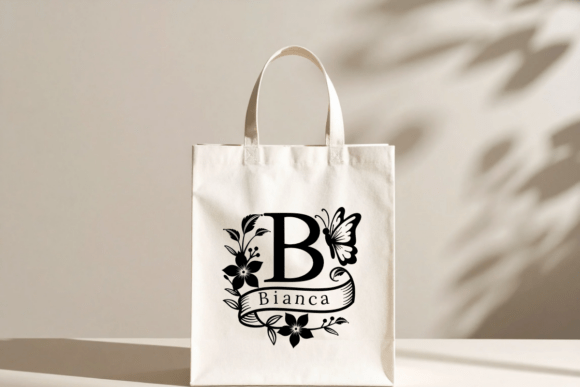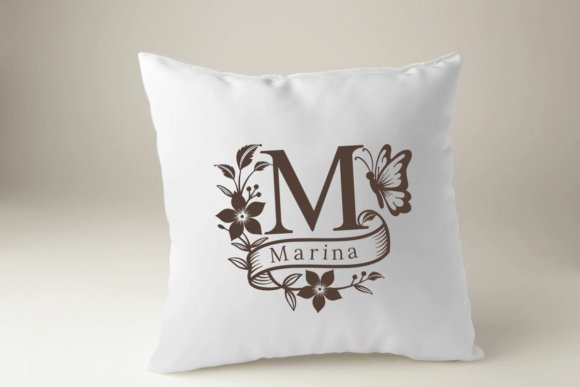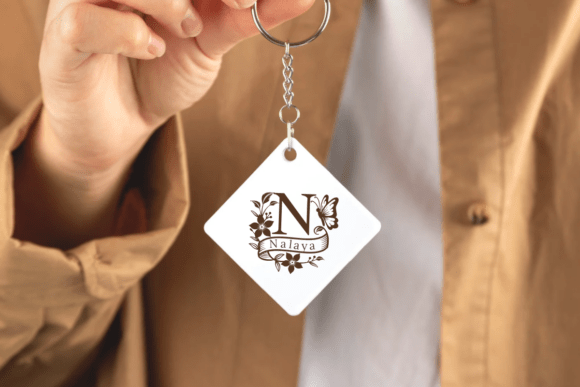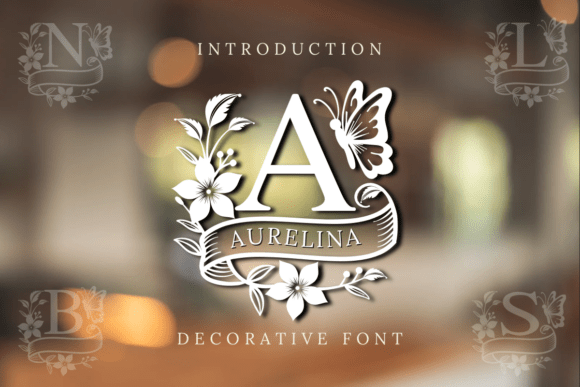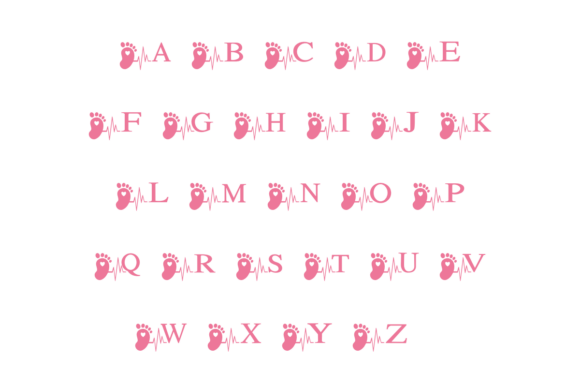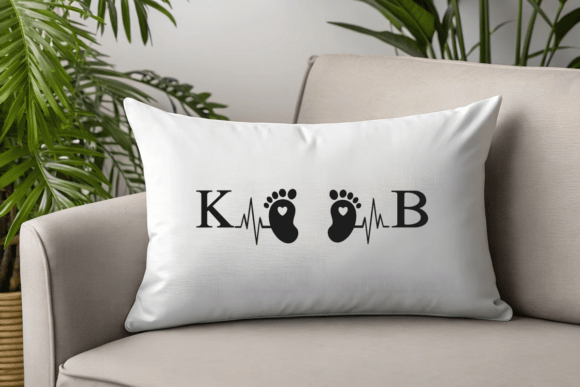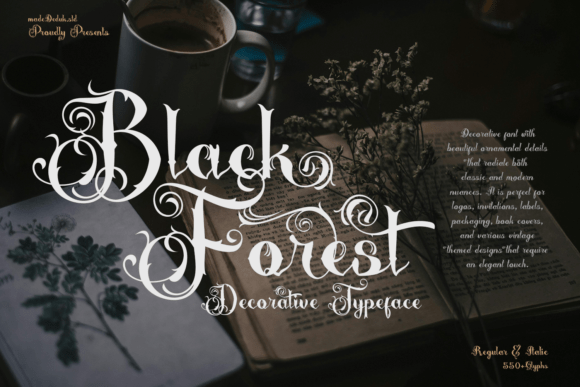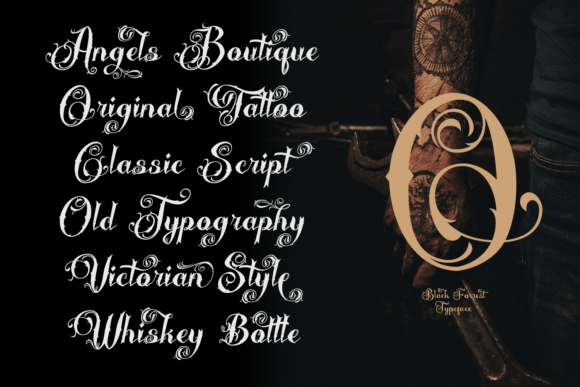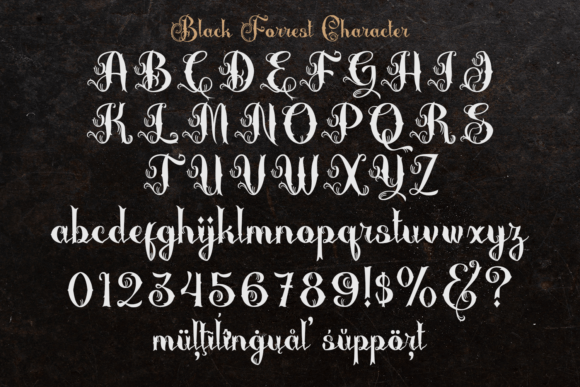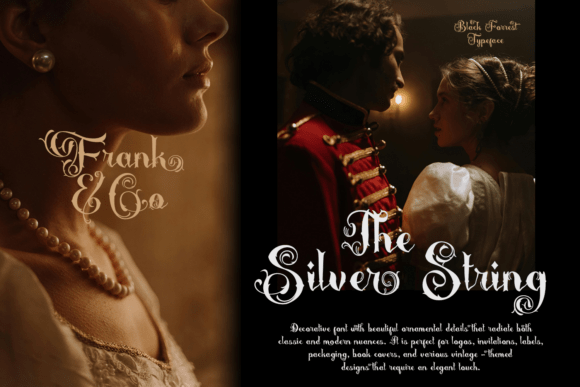
22+ Best Decorative Fonts for Creative Design
The Best Decorative Fonts for Your Project
In the world of design, there are countless fonts, but decorative fonts hold a special place. They are true works of art, capable of turning ordinary text into a bright and memorable message. They are perfect for special occasions, creative projects, and anything that requires a personal touch. Let’s dive into the world where decorative fonts set the tone and look at some interesting examples that can inspire you to new creative heights.
Elegant Decorative Font: Beauty Flower Monogram
Beauty Flower Monogram is a graceful decorative font with sophisticated floral ornaments. It is ideal for creating monograms, wedding invitations, greeting cards, and any design that needs a touch of romance. Its authentic style will help add a unique charm to your work.
Playful Decorative Font: Cute Dog
Cute Dog is a sweet and playful handwritten font that will add friendliness and warmth to your projects. This decorative font is perfect for children’s books, greeting cards, social media posts, and any other design where you want to create a relaxed and cheerful atmosphere.
Vintage Decorative Font: Aurelina Monogram
Aurelina Monogram is a vintage decorative font, adorned with exquisite floral and butterfly accents. It is designed for elegant monograms, wedding designs, branding, and logos. Each letter of this font resembles a blooming garden, bringing a nature-inspired sophistication to the design.
Whimsical Decorative Font: Dinosaur (Charm Style)
Unleash the dinosaur within your creative endeavors with the Dinosaur font. Its decorative charm acts as a captivating tool for notetaking, diary entries, or designing sentimental greeting cards. Go beyond the ordinary and infuse its distinctive flair into a variety of designs. Whether adorning a vibrant banner, imprinting a cozy mug, or enhancing a trendy t-shirt, this decorative font stands out, leaving an indelible print.
Playful Decorative Font: Dinosaur (Spiky Style)
Roar into creativity with Dinosaur, a bold and playful decorative font designed to delight kids and bring prehistoric fun to your designs. Featuring spiky embellishments and dino-scale textures inside each letter, this font is perfect for children’s projects, party invitations, educational materials, and themed branding. Its friendly and adventurous style makes it a favorite for anything dino-related!
Wedding Couple Monogram Decorative Font
Wedding Couple Monogram is a font family in an elegant historical style, created for couple monograms. Inspired by old needlework patterns, this font is ideal for wedding projects where it’s important to emphasize the union of two people.
Western Style Decorative Font: Rope Rider
Rope Rider is a font designed to look like a cowboy’s lasso. It has a clean and highly readable design, making it an excellent choice for creating rustic-style signs, T-shirts, and other Wild West-themed projects.
Playful Decorative Font: Glora Heart
Glora Heart is a very bold, rounded, and playful decorative font. Its letters are adorned with heart-shaped cutouts, giving it a fun and cartoonish look. This font is perfect for designs on the theme of love and children’s products.
Scrabble Game Decorative Font
Scrabble Game is a font that imitates the tiles from the popular board game “Scrabble.” Each letter is enclosed in a square and has a number in the corner. This decorative font is ideal for educational materials, school projects, and anything related to games.
Butterfly Inside Decorative Font
Butterfly Inside is an elegant decorative font with butterfly and flower patterns inside the letters. It’s excellent for creating beautiful stationery, social media posts, and greeting cards.
Bright Heart Decorative Font
Bright Heart is a cute and playful decorative font with heart-shaped cutouts. Its whimsical design is perfect for children’s books, greeting cards, party invitations, and other fun and creative projects.
Black Forest Calligraphy Decorative Font
Black Forest is a calligraphic font that is also described as a font duo. It is distinguished by its elegance and is perfect for creating logos, posters, and wedding invitations.
Embroidery Stitch Style Decorative Fonts
Embroidery Stitch is not one specific font, but a whole style that mimics embroidery. Such decorative fonts are used in projects for embroidery machines to give the text a handmade look.
Love Animals 6 Decorative Font
Love Animals 6 is a “cute and happy handwritten font” that is “perfect for kid-themed designs, especially when combined with bright colors.”
Choosing the right decorative font is a crucial step in any creative process. A well-chosen font can not only convey information but also evoke emotions, create the right mood, and make your design truly unique. Hopefully, this review has inspired you to experiment with your next project. For even more options, you can explore collections of the best romantic script fonts and other best creative fonts to expand your design toolkit.